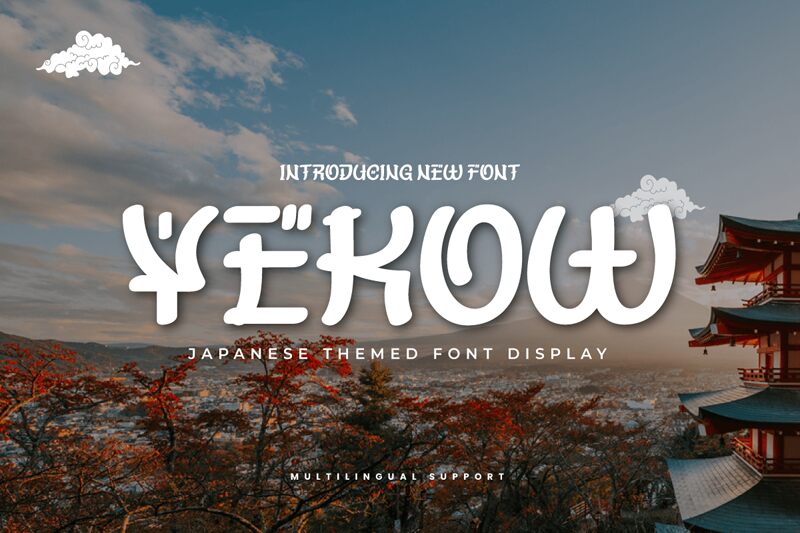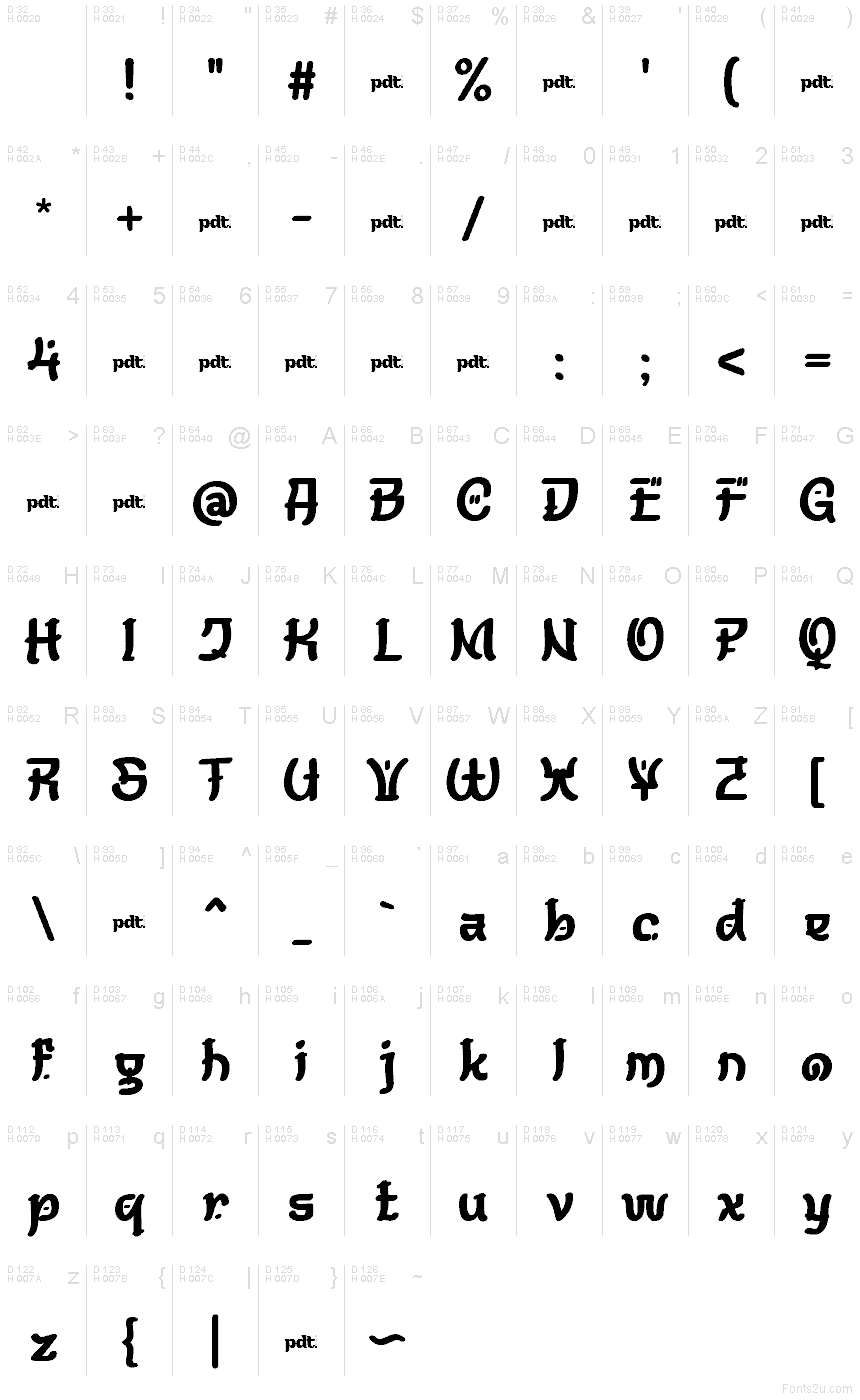
YEKOWtrial Regular
Introducing YEKOW, the captivating japanese-style font created by Rozi of Productype. With its bold marker strokes and unique design, YEKOW is perfect for any project that requires an eye-catching and distinctive font.
Whether you're designing a logo for a new business or creating graphics for social media posts, YEKOW's semi-bold typeface and wide width will make your text stand out from the crowd. Use it for fashion magazines, food blogs, travel brochures or any other creative endeavor that needs a touch of excitement. With YEKOW, your typography will never be boring again.